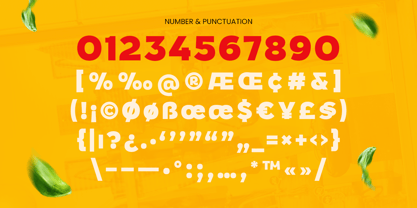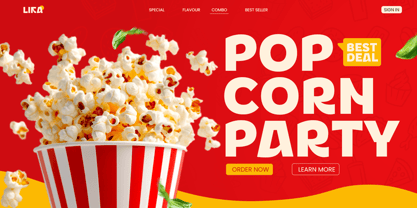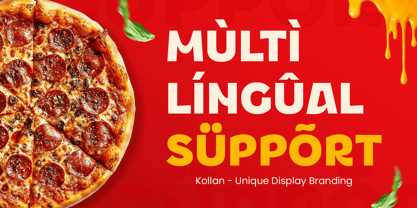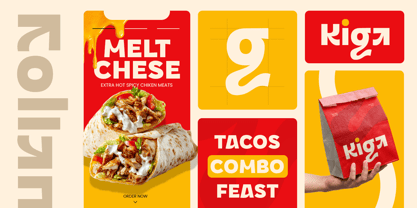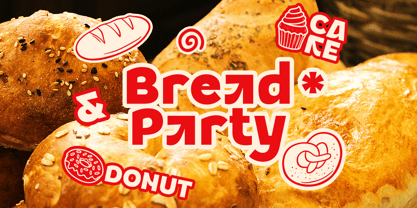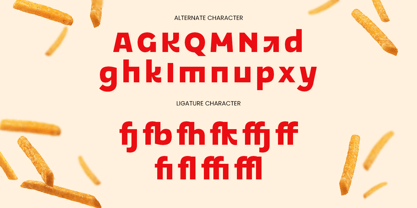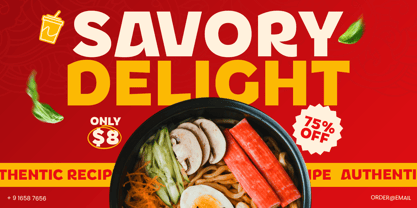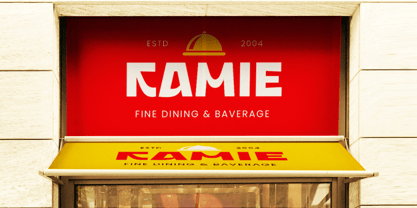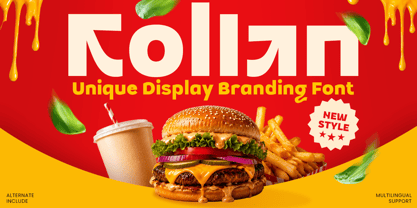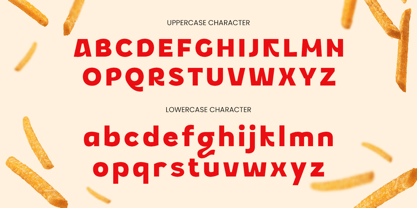
Kollan
by Sensatype Studio
The Kollan Font Family was designed by Zamroni Hamzah and published by Sensatype Studio. Kollan contains 1 styles. More about this family
KOLLAN is a unique branding font created to give modern visual identities a distinctive and memorable personality. Combining contemporary letterforms with creative details, KOLLAN delivers a stylish, confident look that helps brands stand apart while maintaining clean readability.
Perfect for logos, brand identity, packaging, posters, headlines, signage, editorial layouts, advertising, social media, and UI design, KOLLAN adapts effortlessly to a wide range of commercial and creative projects. Its unique character makes it especially effective for businesses, fashion labels, creative studios, lifestyle products, and modern campaigns.
Whether you're developing a fresh logo, launching a new product, or building a complete visual identity, KOLLAN offers the versatility of a modern branding font with enough personality to create recognizable and engaging typography across digital and print applications.
KOLLAN – Unique Branding Features
• Distinctive letterforms designed for modern branding
• Unique contemporary style with strong visual personality
• Ideal for logos, brand identity, and packaging
• Perfect for posters, headlines, signage, and advertising
• Includes uppercase, lowercase, numerals, and punctuation
• Great for digital, social media, editorial, and print projects
• OpenType features for creative typographic flexibility
Multilingual Support
Create a recognizable visual identity with KOLLAN – a unique branding font built for memorable modern design. ✨